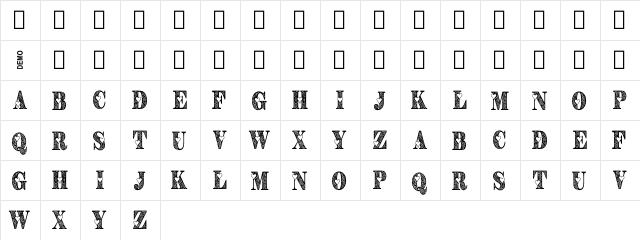
Valtin Demo
| Designer | Eva Barabasne Olasz |
Design Context for Valtin Typeface
Valtin is a composed and adaptable typeface that performs quietly and consistently across a wide range of design contexts.